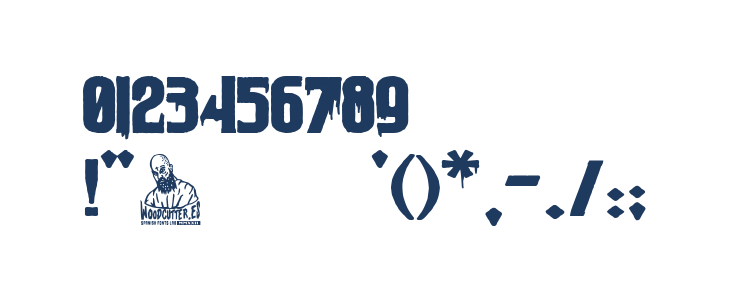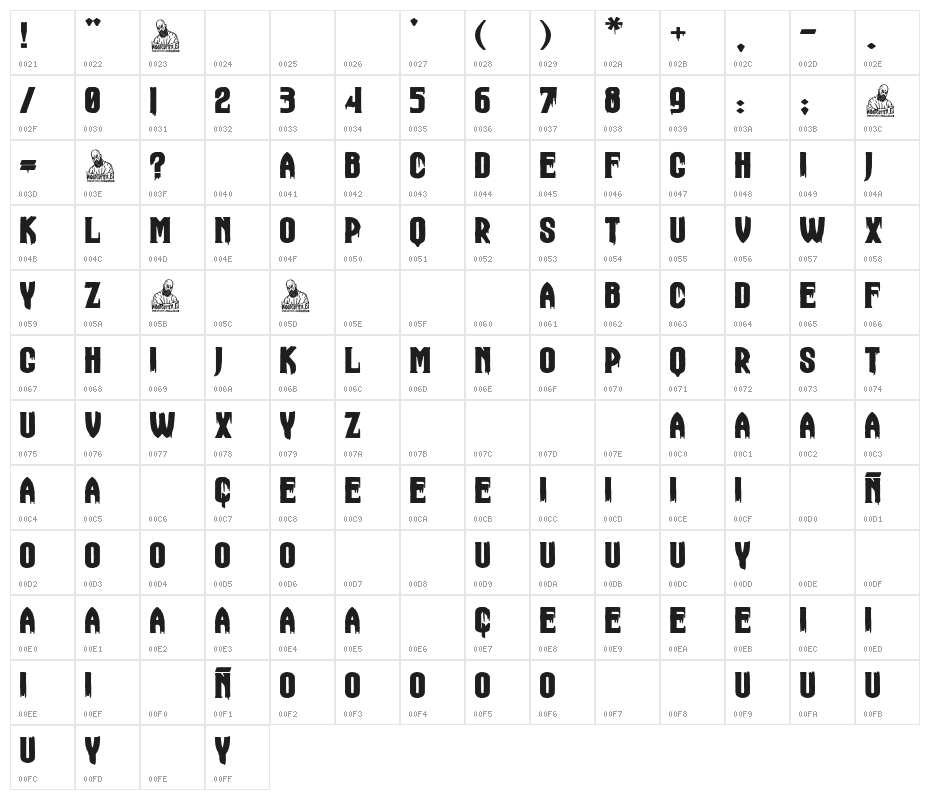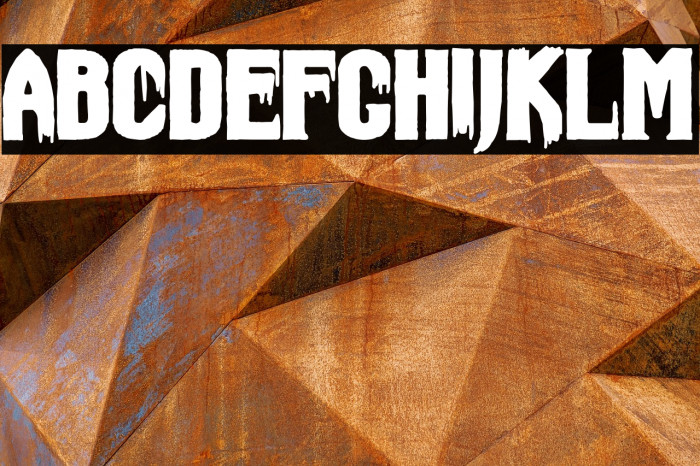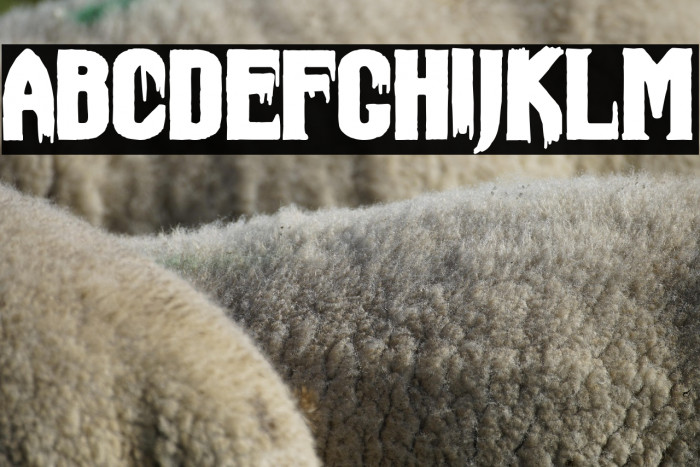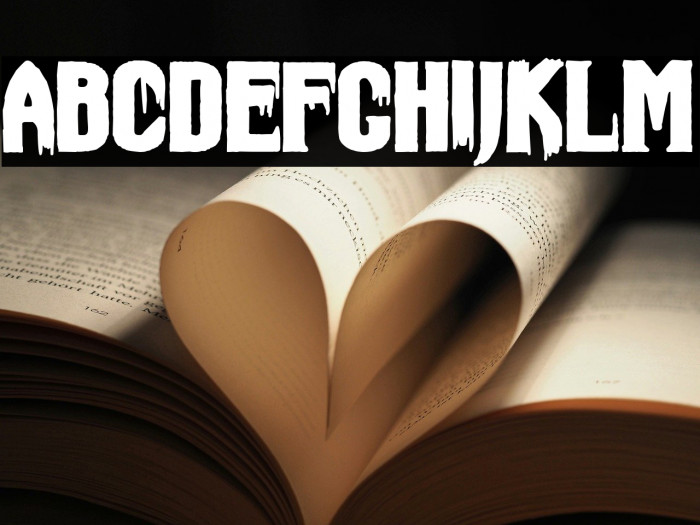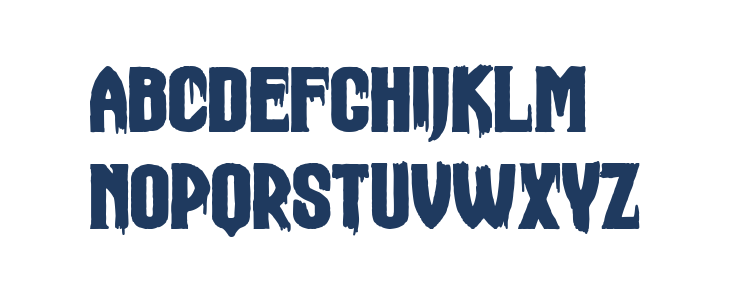
Dracul Hotel Font
Dracul Hotel Description
This font features a bold and dramatic style with a distinct horror theme. The characters have a dripping effect, reminiscent of blood or slime, which adds a spooky and eerie vibe. The uppercase and lowercase letters maintain a consistent thickness, while the numbers and special characters follow the same design motif. The font's unique appearance makes it ideal for Halloween-themed projects or any design that requires a touch of the macabre. Its boldness ensures high visibility, making it suitable for headlines or titles.
| Proposed Projects | Ideal for Halloween invitations, horror movie posters, themed event flyers, and spooky merchandise designs. |